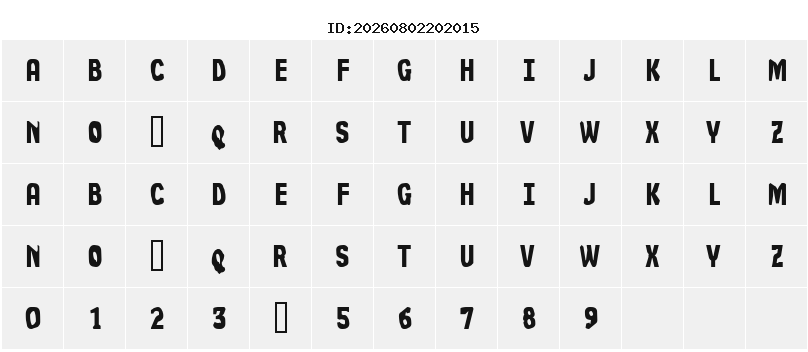
• Font Name: Not So Slim Jim
• Full Font Name: Not So Slim Jim
• Version: obese
Not So Slim Jim.ttf is a modern, elegant sans-serif font designed for ultimate readability and visual harmony. Perfect for branding, headlines, web design, and print materials.